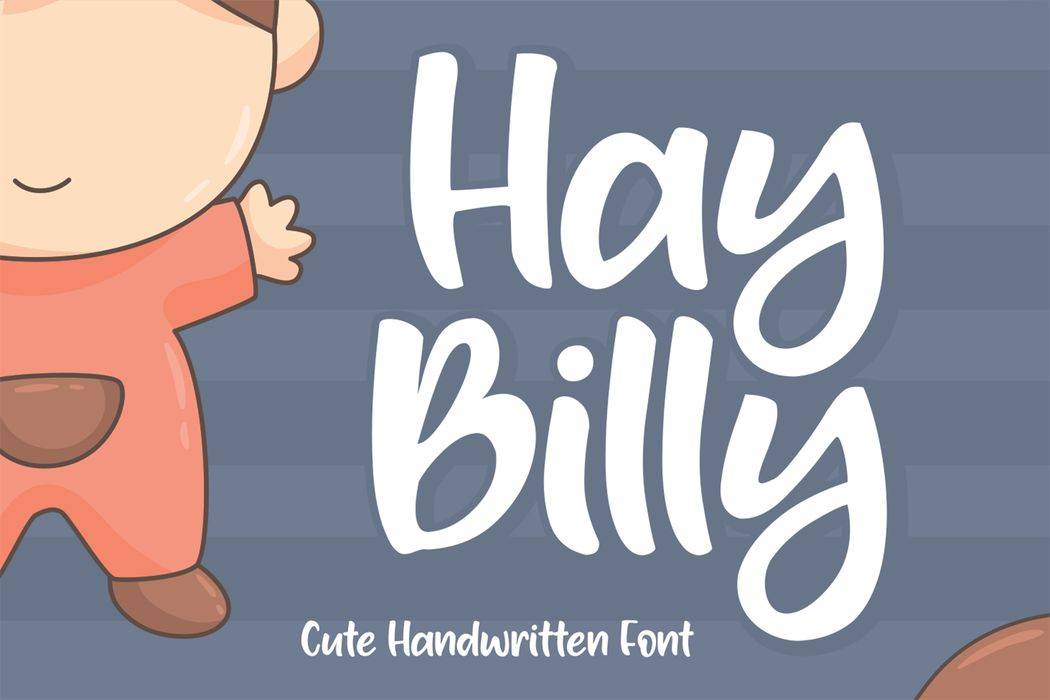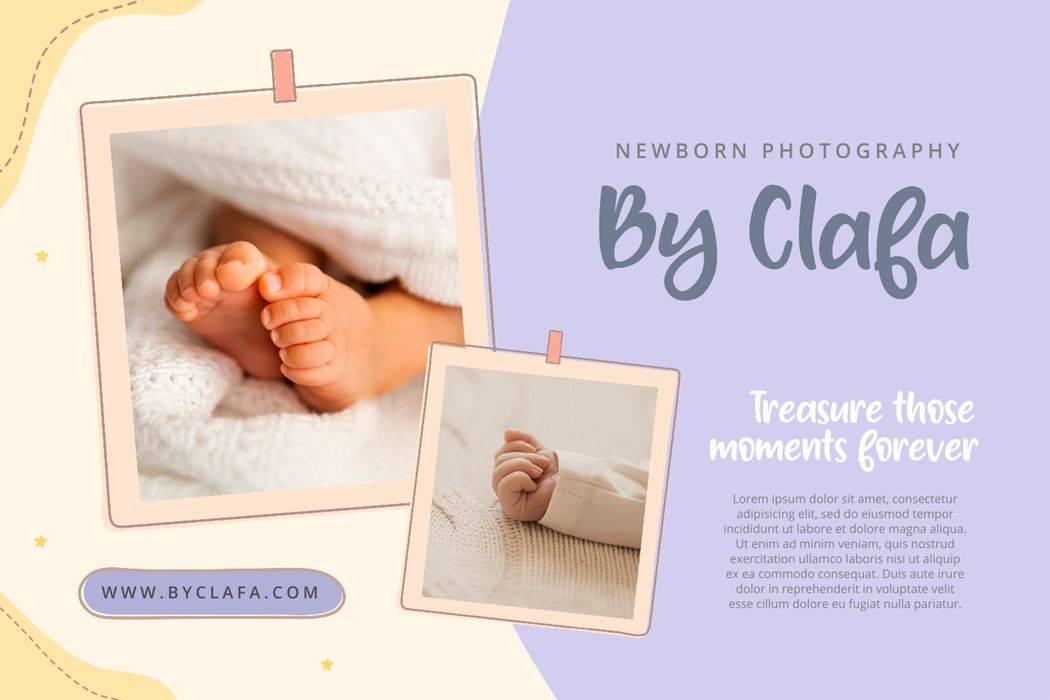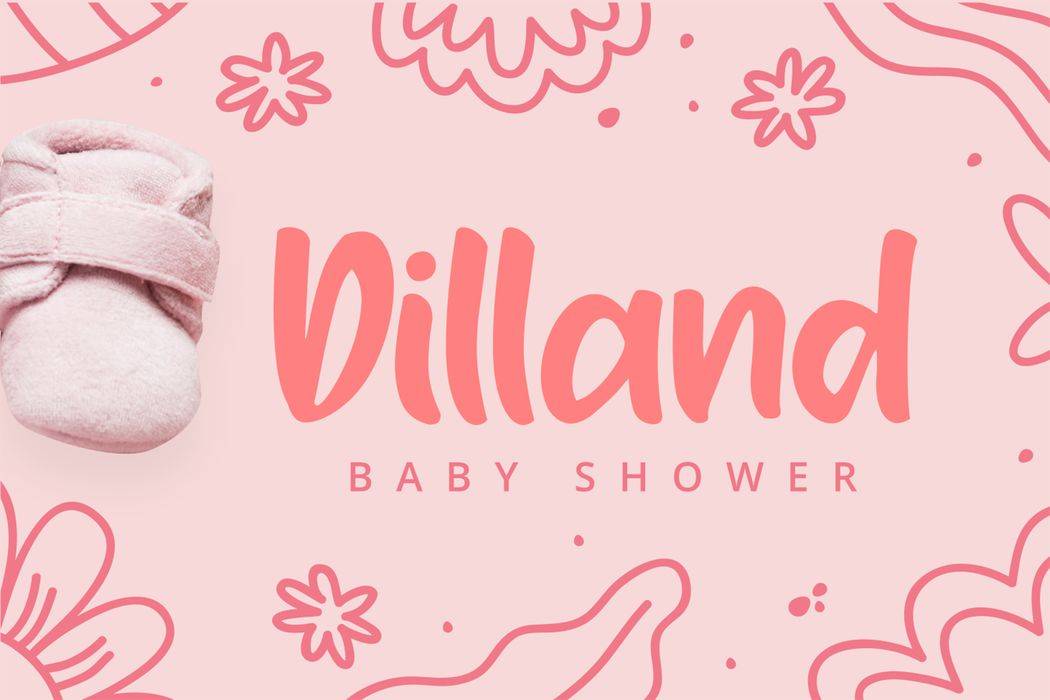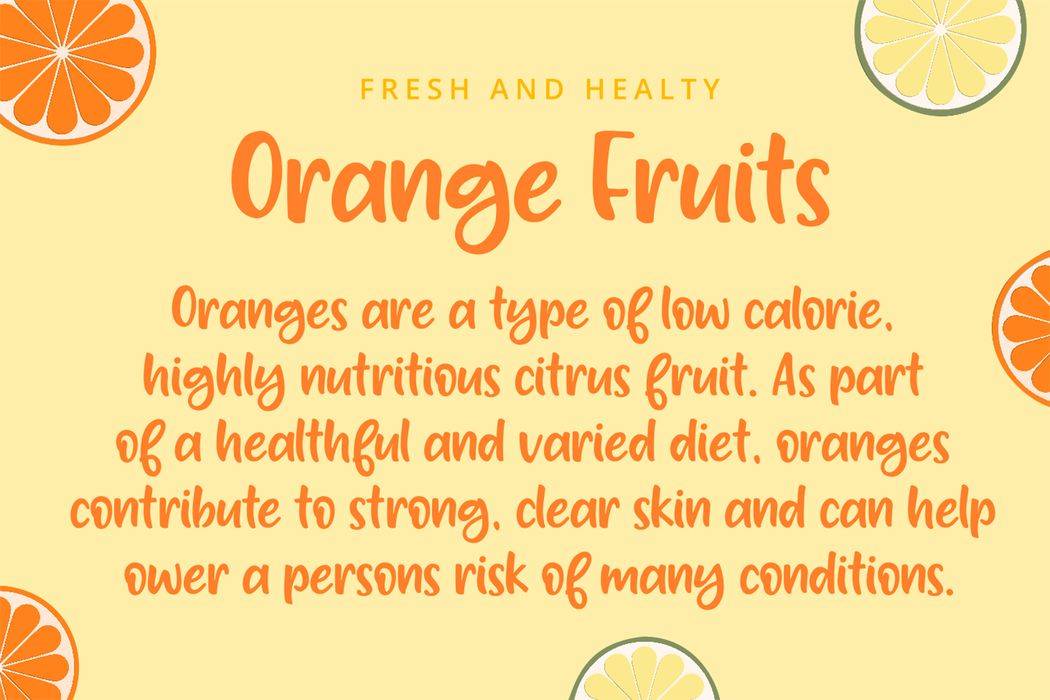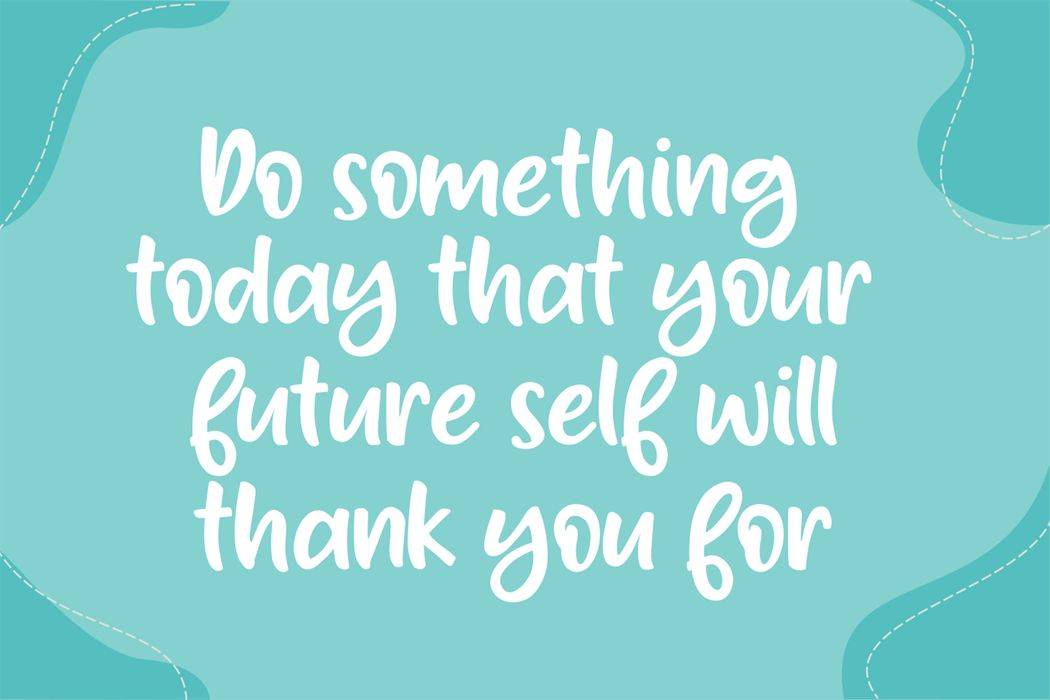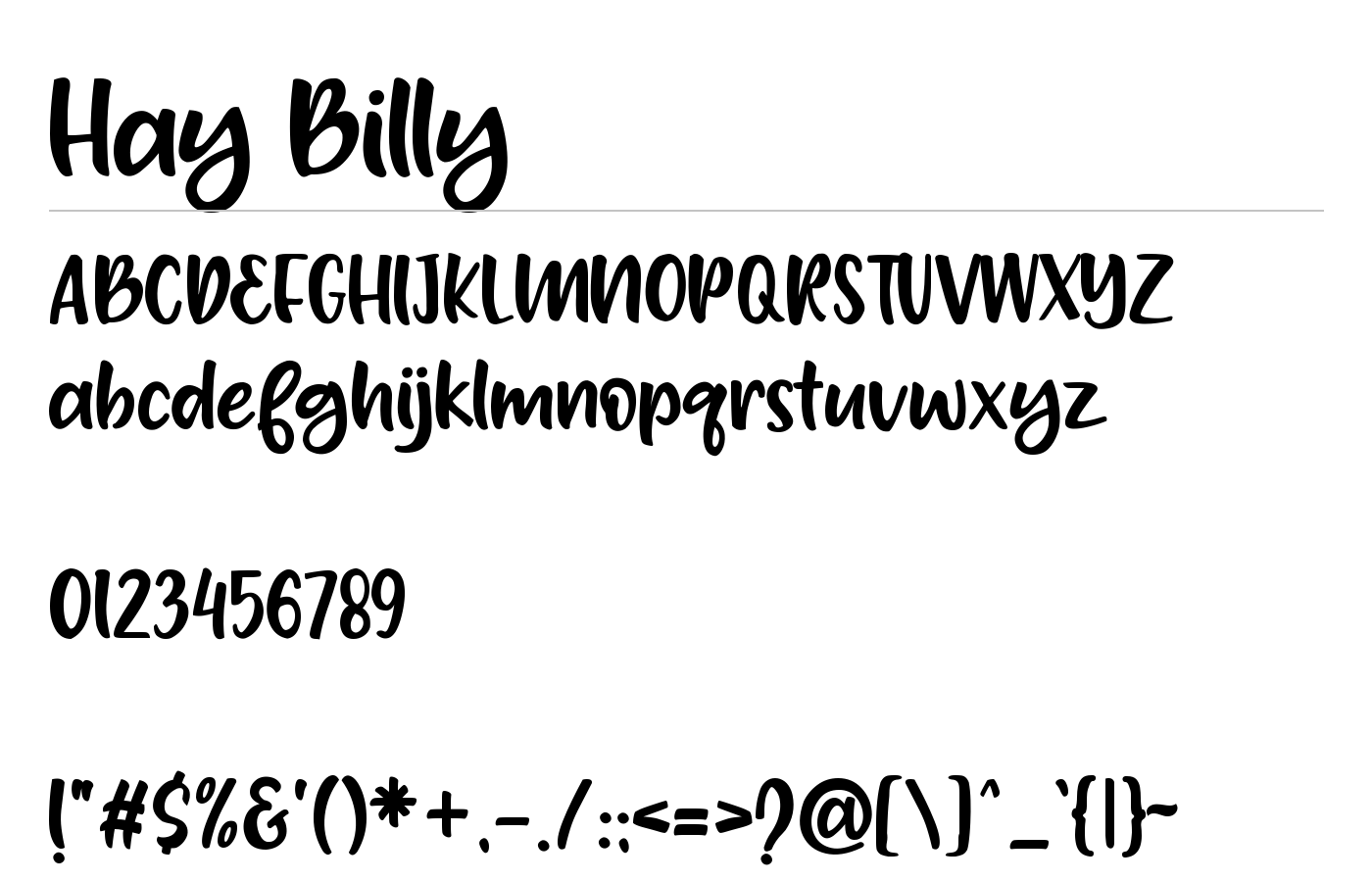
Hay Billy is a playful and casual handwritten sans serif font with a friendly, organic feel. Its rounded, slightly irregular shapes and medium weight make it perfect for informal designs, bringing warmth and personality to branding, invitations, and social media content. This font works best in headlines and logos where a fun, approachable vibe is desired.
Hay Billy Font
About Hay Billy Font
| Font family | Hay Billy Font |
| Designer | Zeenesia Studio 2020 |